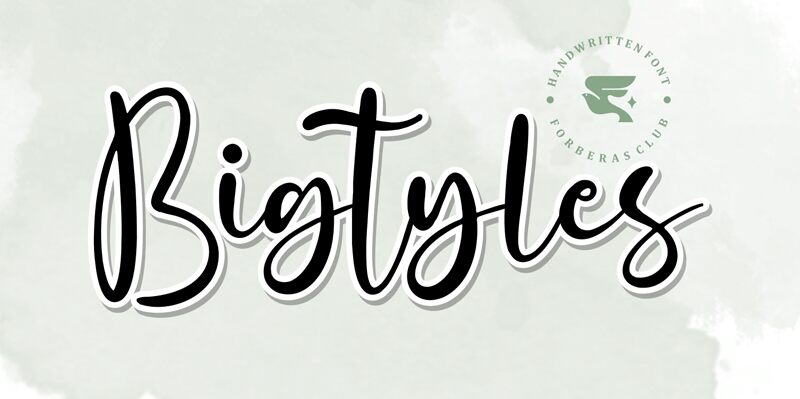
Bigtyles, designed by Forberas Club, is a captivating handwritten font that adds a touch of whimsy to any project. With its semi-light weight, this versatile typeface is perfect for creating eye-catching logos and branding materials that exude creativity and playfulness. Whether you're designing children's book covers, greeting cards, or stylish social media graphics, Bigtyles will bring your ideas to life with its unique charm and effortless elegance. Embrace the power of this font and let your imagination run wild across a diverse range of projects.
Bigtyles